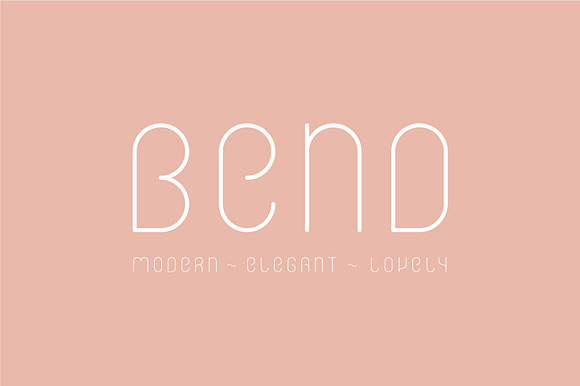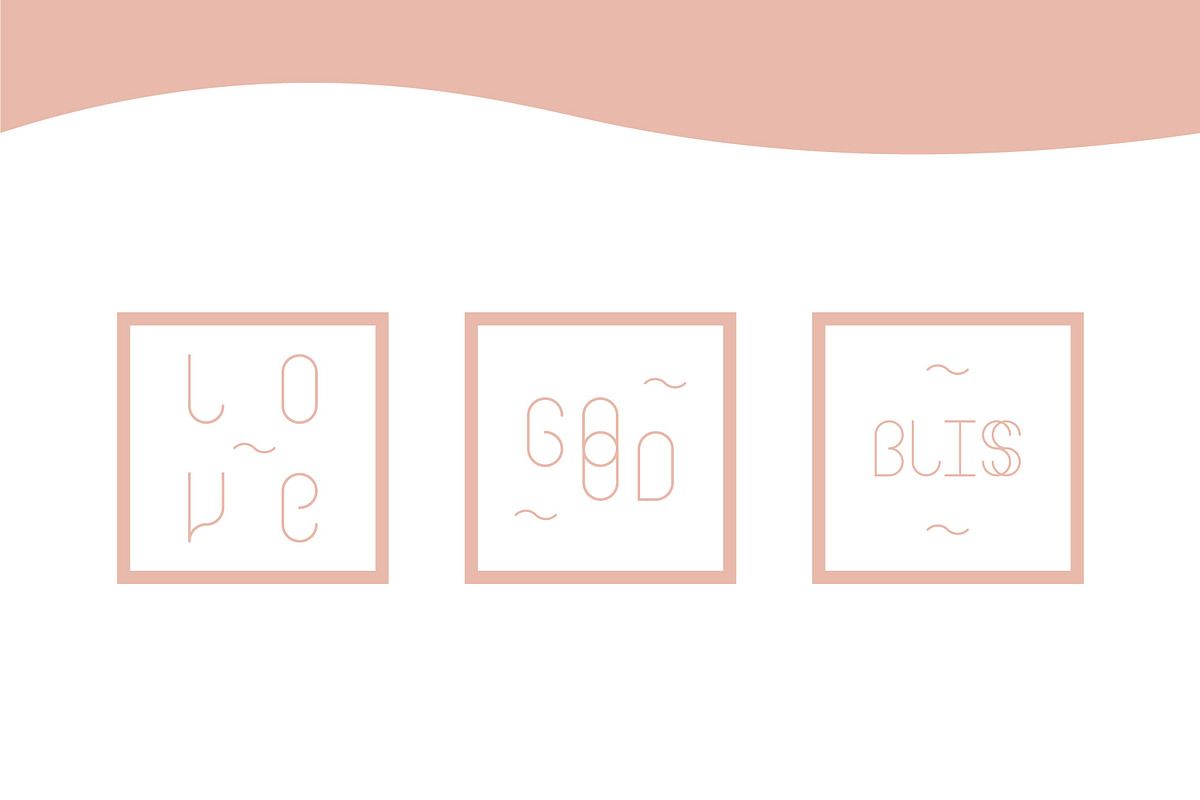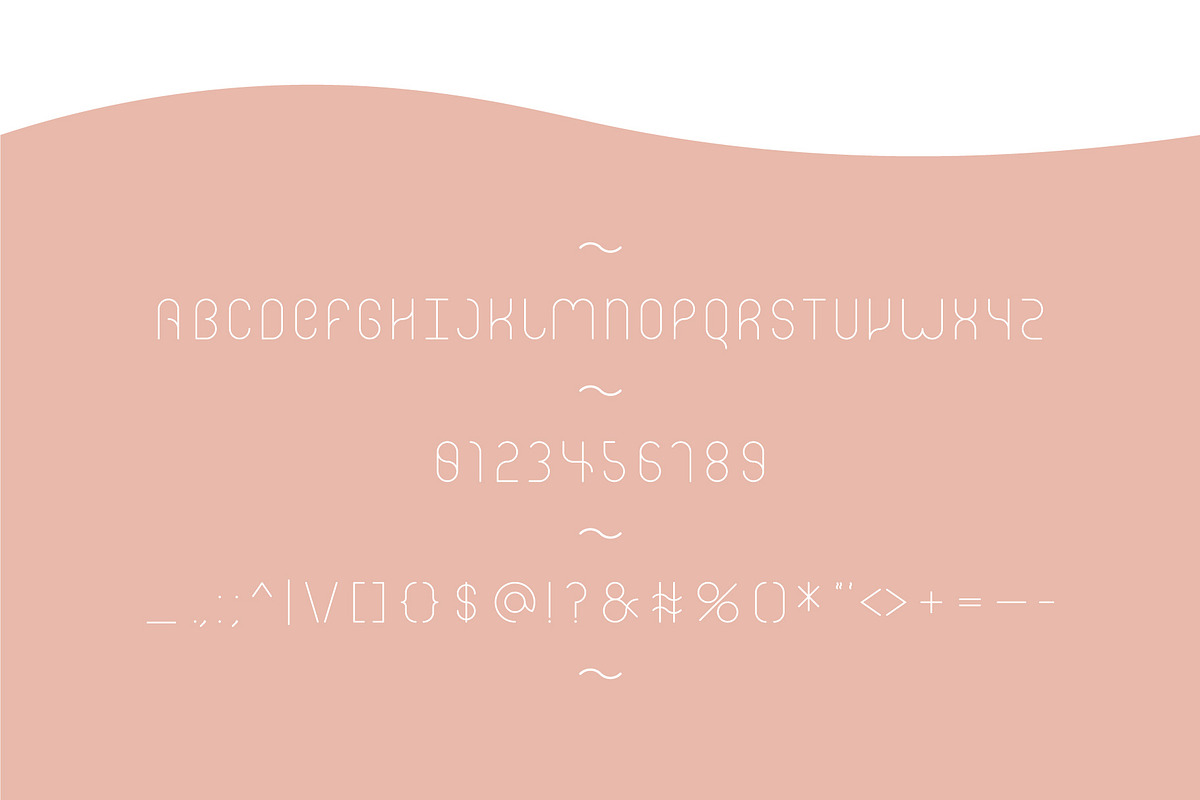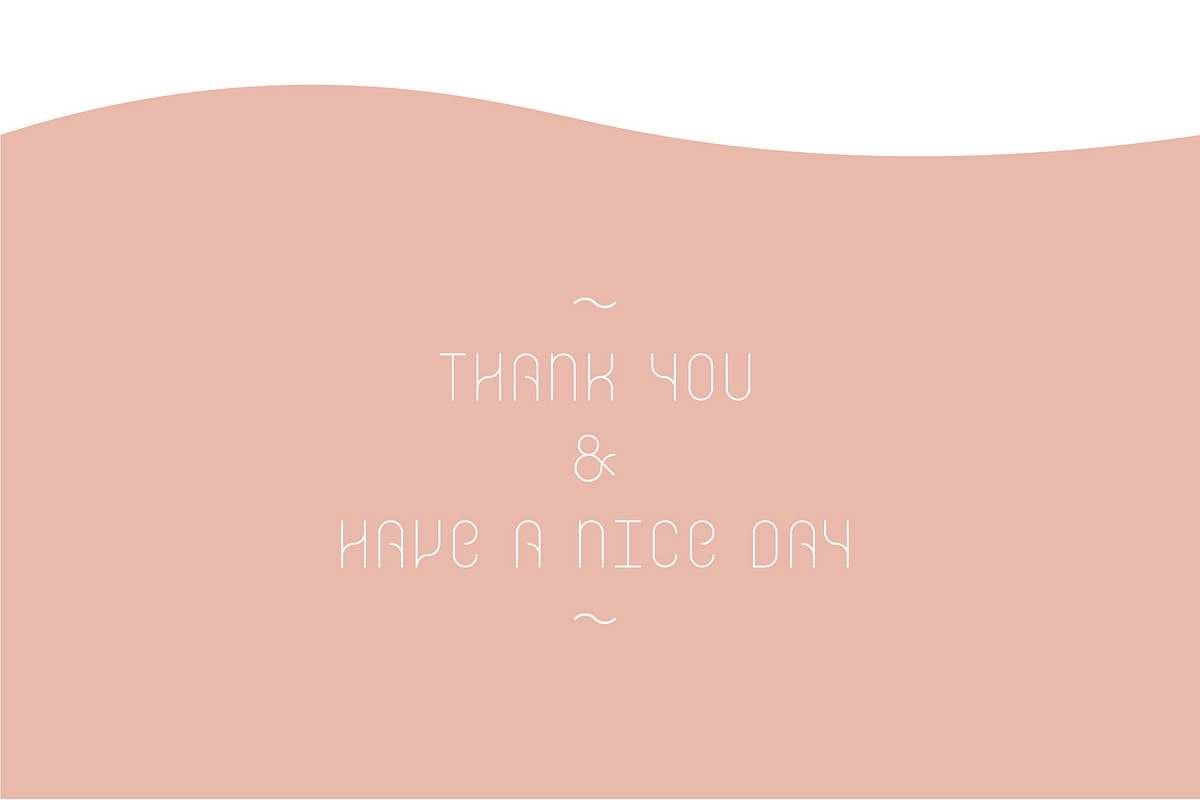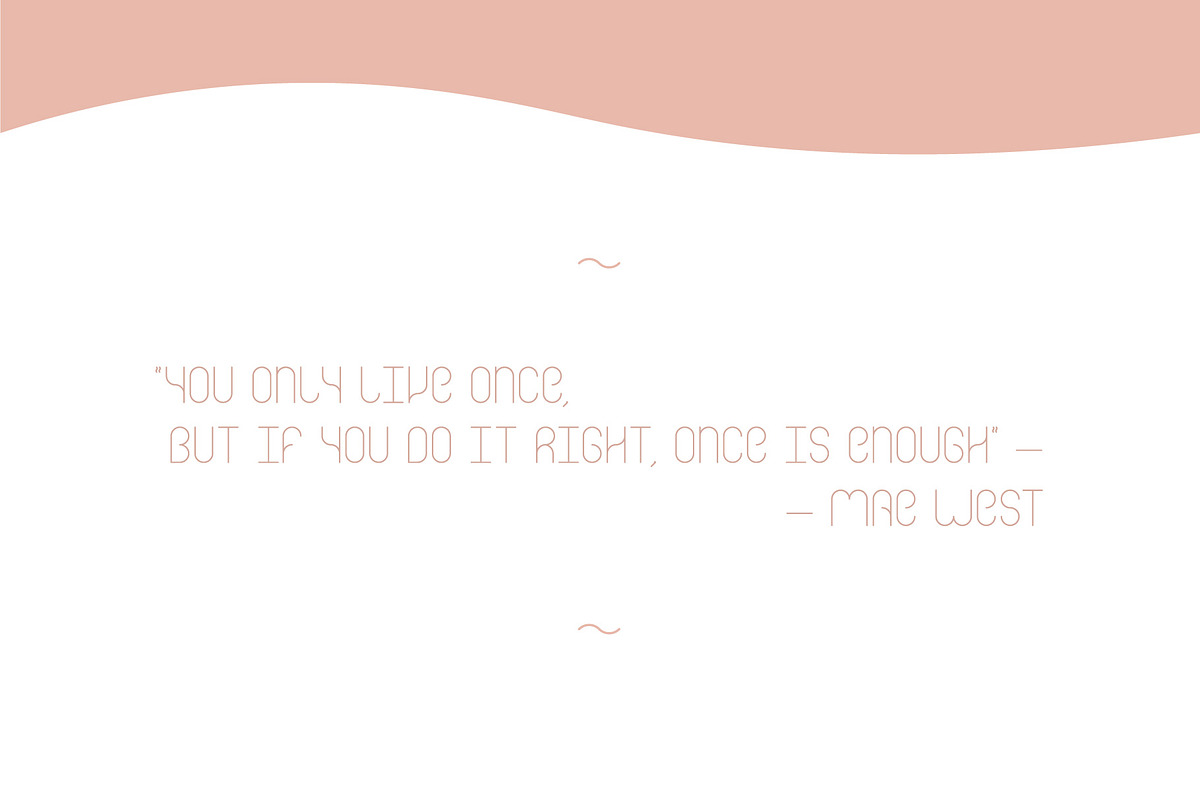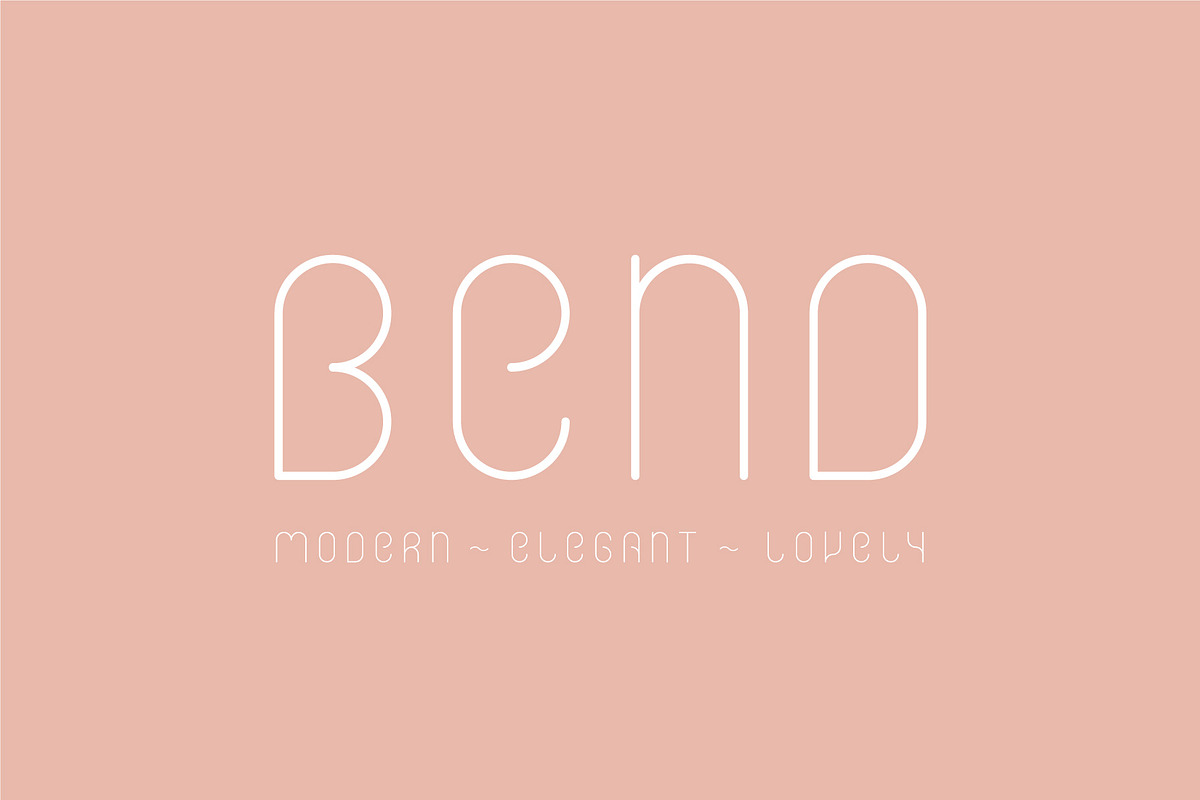
Bend Font
Bend – modern, elegant and lovely sans-serif font with subtle and twisty lines that perfectly underline your style. A universal font that suits your logo, wedding invitations, a stylish party or a fashion show is up to you!